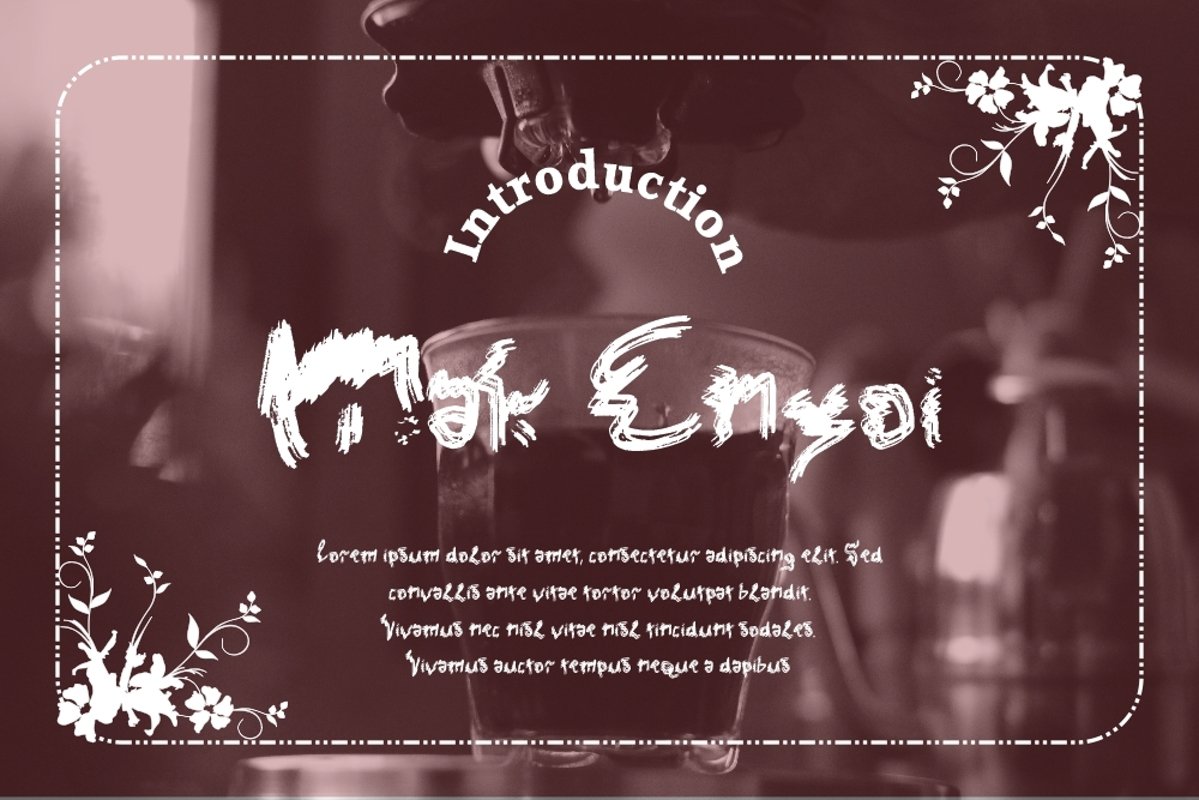
Mak Enyoi
Mak Enyoi Typeface is a brush type. It suitable for any vintage type needs and more Happy creating.Very suitable for you who do exploration